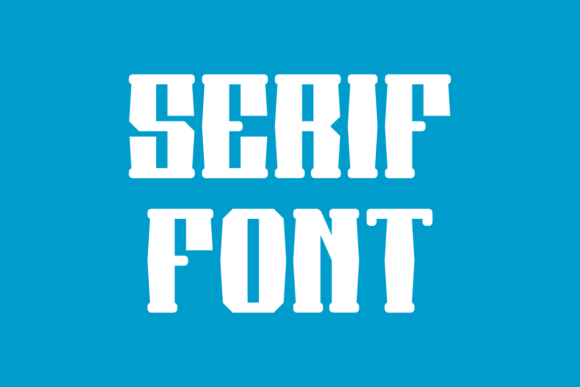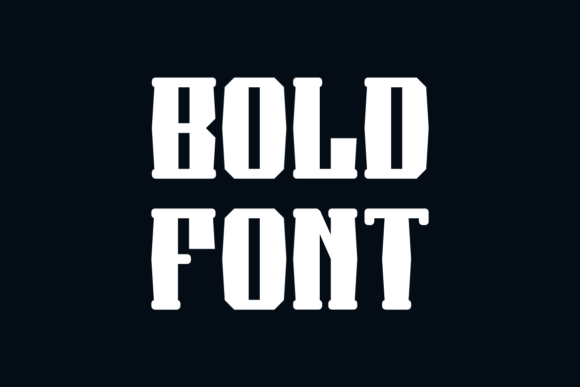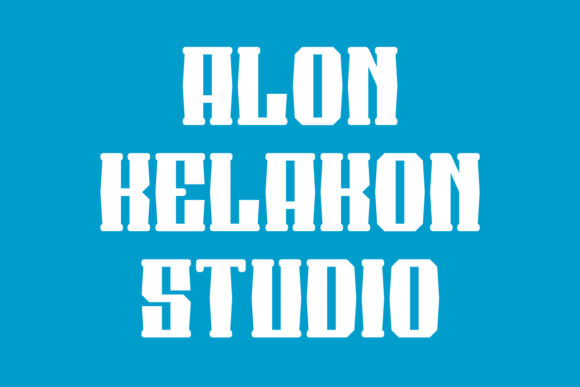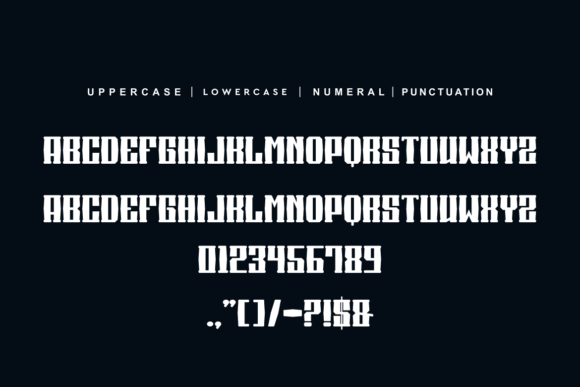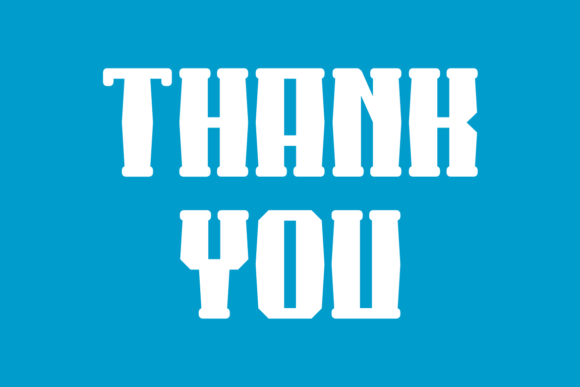
The Blues Sloger Font: A Bold and Assertive Serif Game-Changer
Blues Sloger is a bold and assertive serif font that’s perfect for designers, crafters, and creative hobbyists looking to elevate their creations. Whether you’re working on a branding project, a social media graphic, or a craft project, this font has the potential to take your design to the next level.
- ✅ Bold and assertive: Blues Sloger is not for the faint of heart. This font makes a statement and demands attention.
- ✅ Versatile: Whether you’re working on a digital project or a print project, Blues Sloger adapts seamlessly.
- ✅ Unique character: This font has a distinct personality that sets it apart from other serif fonts.
- ⚠️ Limited use in body text: Blues Sloger is best used for headlines, titles, or emphasis text. Its boldness can be overwhelming for longer blocks of text.
- ⚠️ Some kerning issues: As with any font, there may be some kerning issues, especially when using certain character combinations.
Blues Sloger was designed with the intention of creating a bold and assertive serif font that could be used in a variety of contexts. The designer, inspired by the classic American West Coast blues scene, aimed to capture the essence of confidence and swagger in this font. And, boy, did they succeed! 😎
Q: Is Blues Sloger suitable for body text?
A: While Blues Sloger can be used for body text, it’s best suited for headlines, titles, and emphasis text due to its boldness.
Q: Does Blues Sloger support OpenType features?
A: Yes, Blues Sloger supports OpenType features like stylistic alternates and glyphs, making it a versatile font for designers.